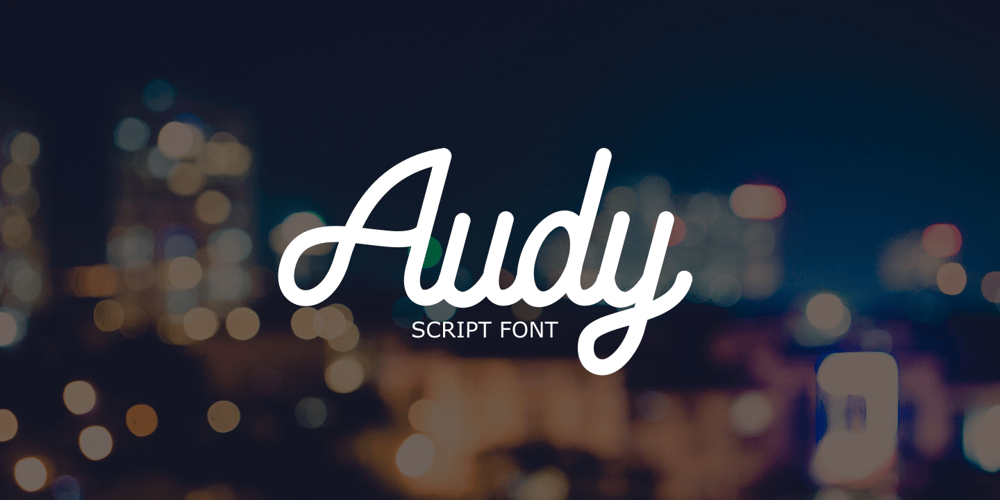
Audy Script Font Family was designed by Rohmat Sidiq Mustaqim and published by Dieza Design. Audy Script contains 1 styles and family package options. Thanks for checking out Audy Script Font, a fabulously fun yet elegant script font with tons of energy, allowing you to create beautiful typography in an instant. With extra bouncy curves & loops, Audy Script is guaranteed to make your text stand out – perfect for logos, printed quotes, invitations, cards, product packaging, headers and whatever your imagination holds. Audy Script is also suitable for branding, wedding invitations, magazine. Audy Script looks modern and stylish.